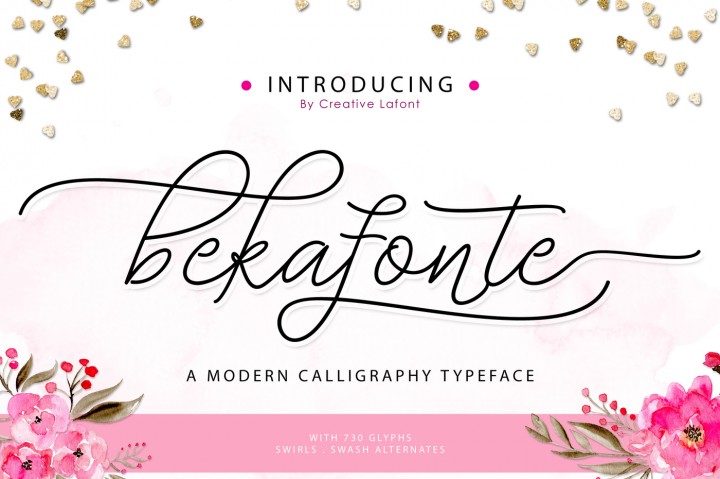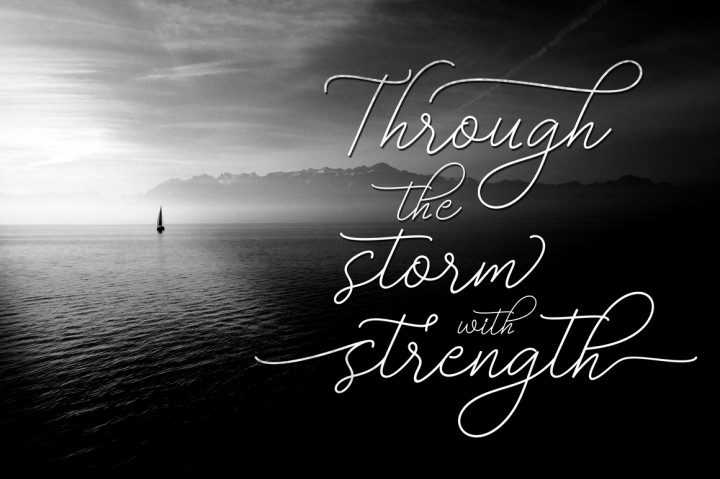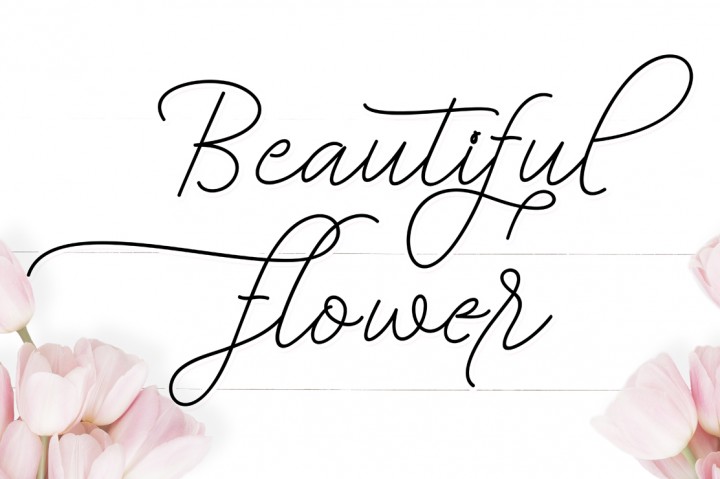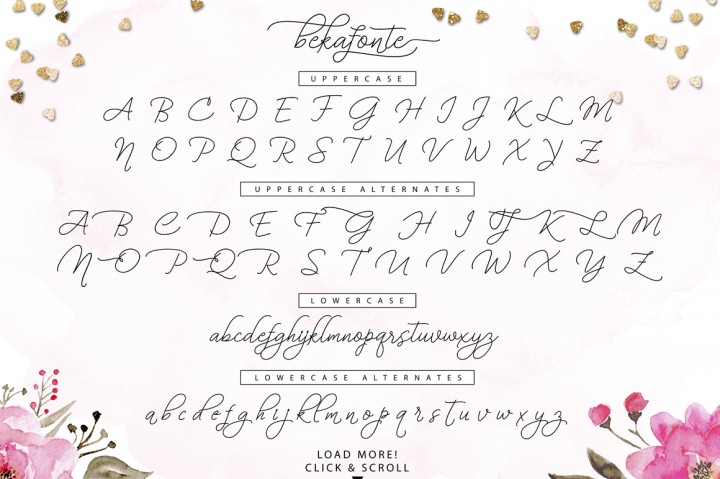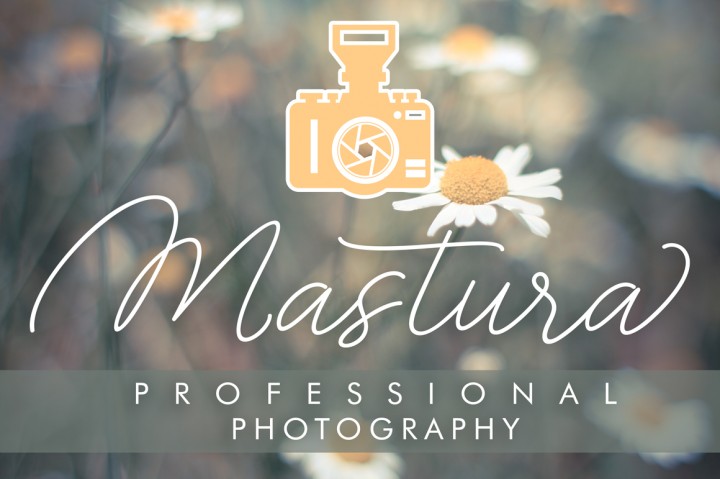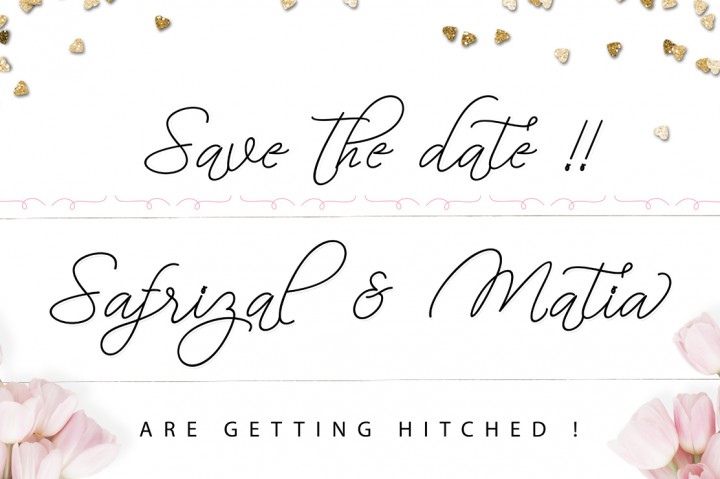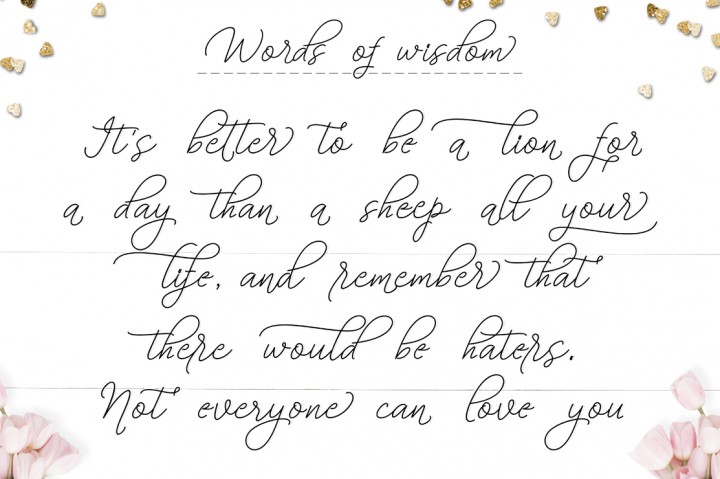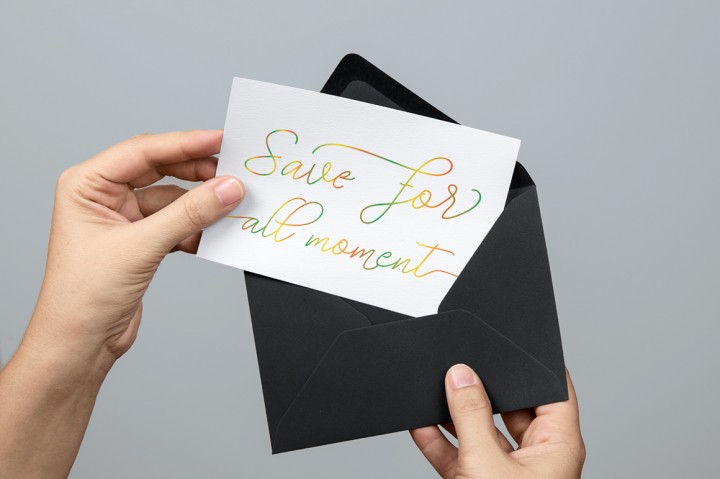
Bekafonte Font
Bekante is a hand-drawn font packed with alternates and swashes.
The Bekante font is great for when you want to add some elegance and style to your design and works very well on items that require a personal touch.